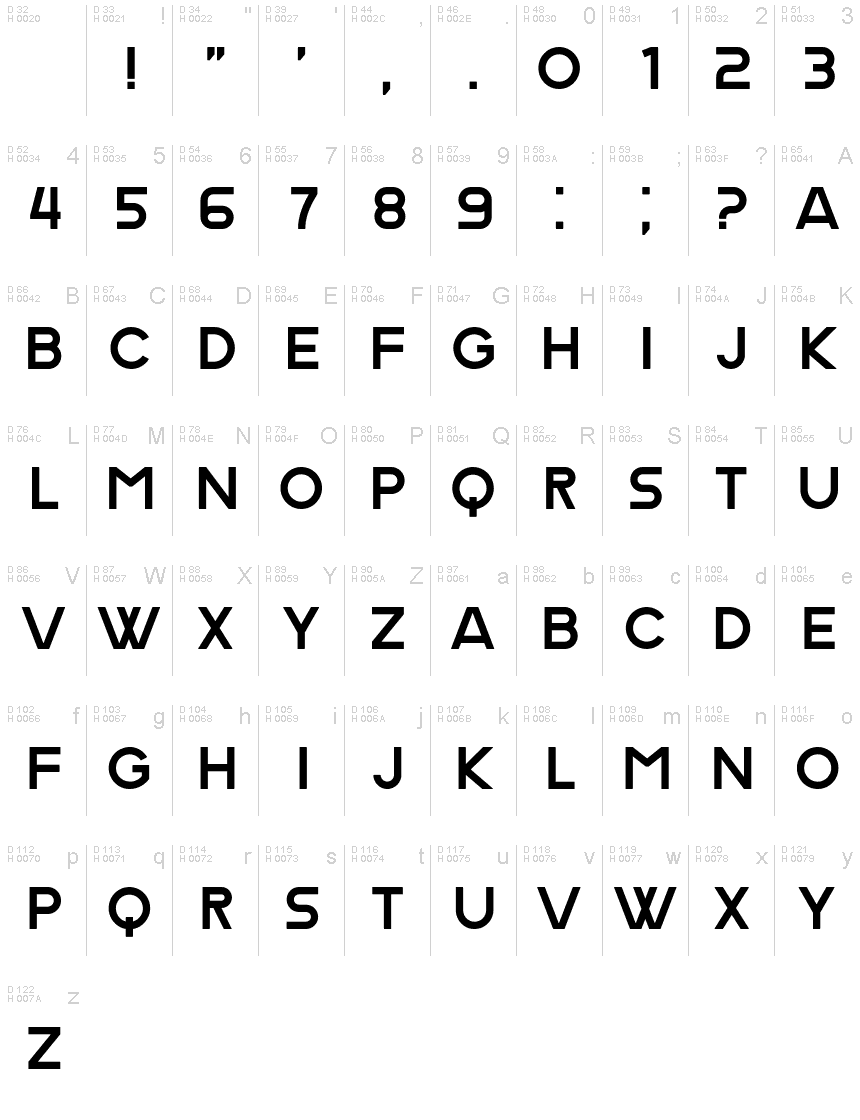
Bawler Regular
Bawler, a sleek sans serif font designed by Vladimir Nikolic, offers a perfect balance of elegance and modernity. With its semi-expanded width, this font is ideal for projects that require a touch of sophistication combined with readability.
Bawler's clean lines and minimalist appeal make it an excellent choice for corporate branding, professional presentations, and editorial designs. Its versatility allows it to seamlessly blend into various contexts such as fashion magazines, tech blogs, or even food packaging.
Elevate your next project with Bawler's refined aesthetic and timeless charm.